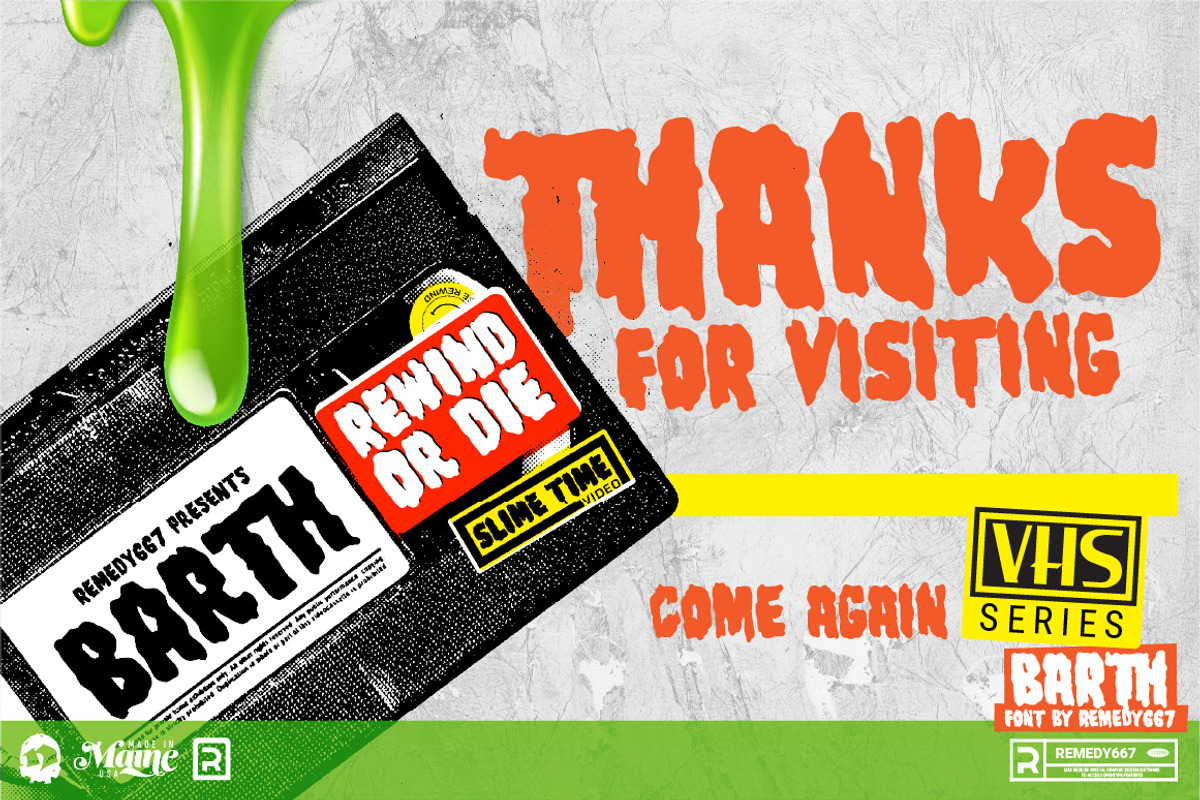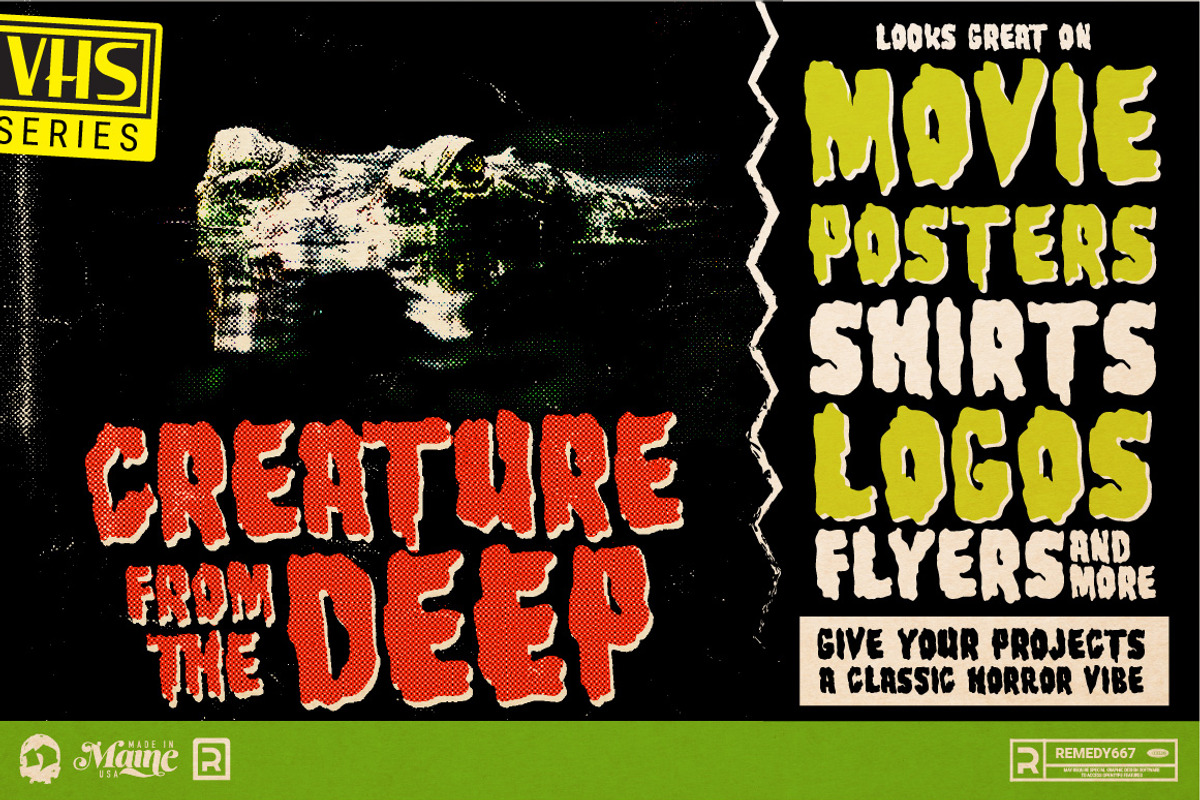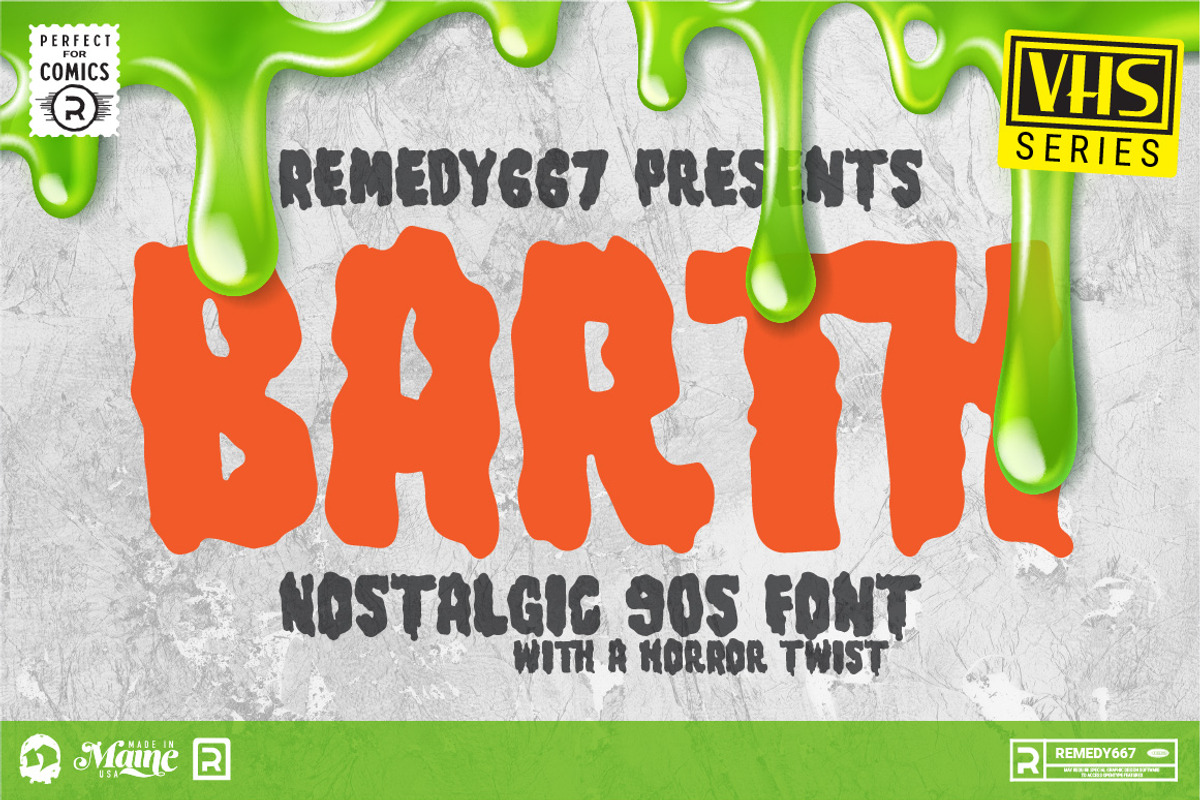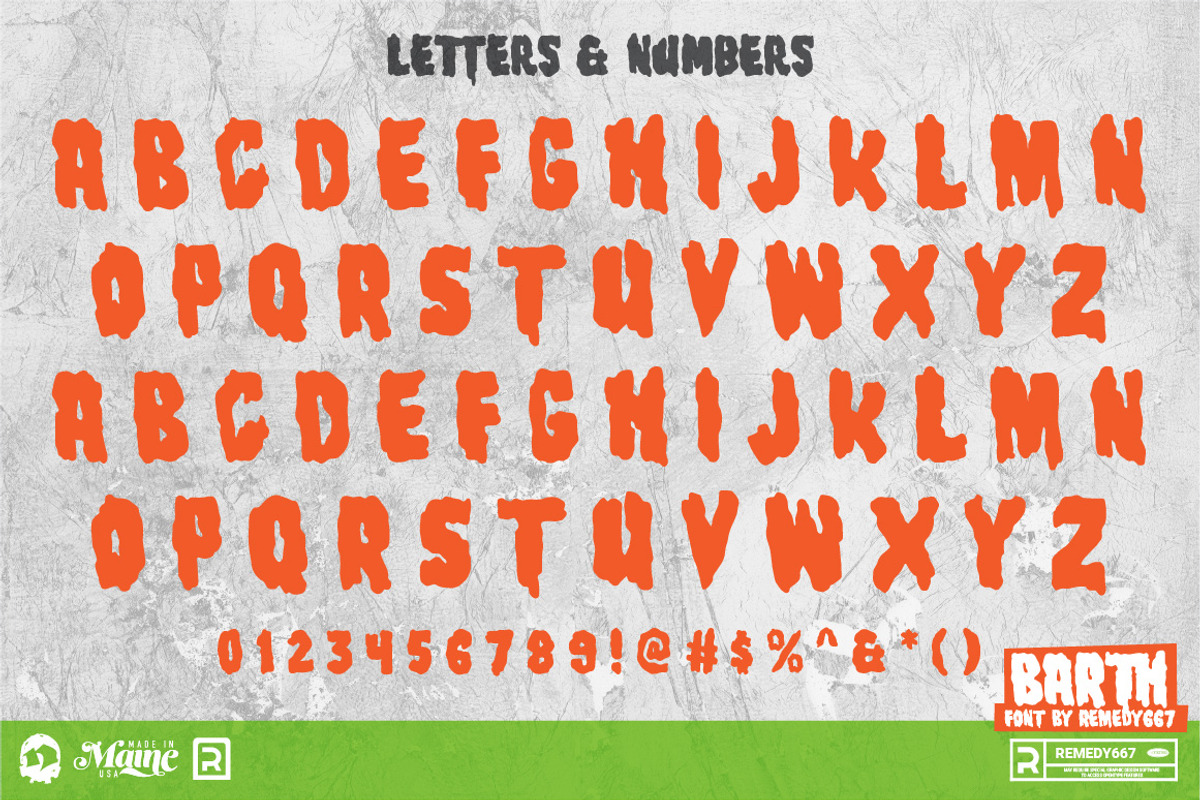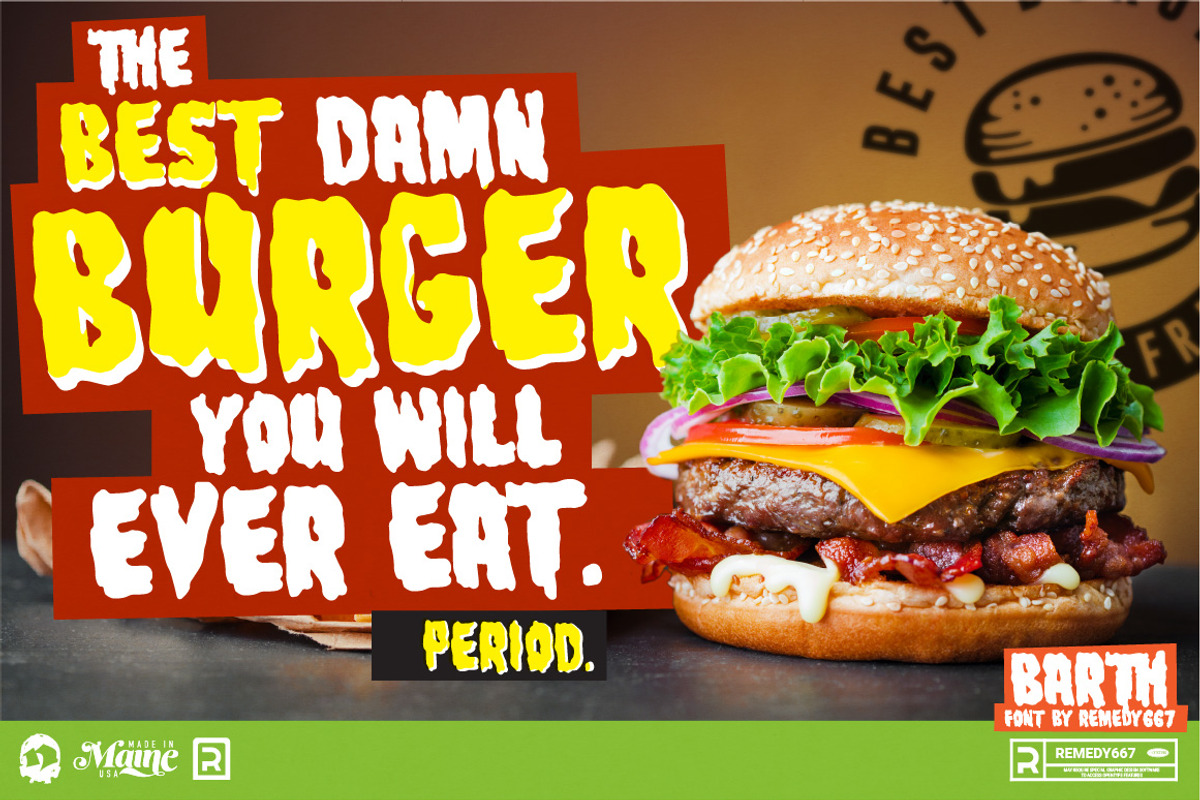
Barth - 90s Font
If you’re in need of some serious typography, stop scrolling. Barth. Yoooou heard that right. Designed with a love for horror movies and 90s Nickelodeon nostalgia, Barth is the best font. Get serious about your design work, get Barth. It’s burgery.
Looking for a horror font that is as fun and nostalgic as it is eye-catching? Barth. Yoooou heard that right. This retro font is sure to get your viewers hooked on your work with its bold style and innocent yet spooky lettering. It’s perfect for posters, books, movies, even restaurant signage and beyond.
- Doubles Elimination gives you a more natural look.
- Stands out and get noticed…. be heard.